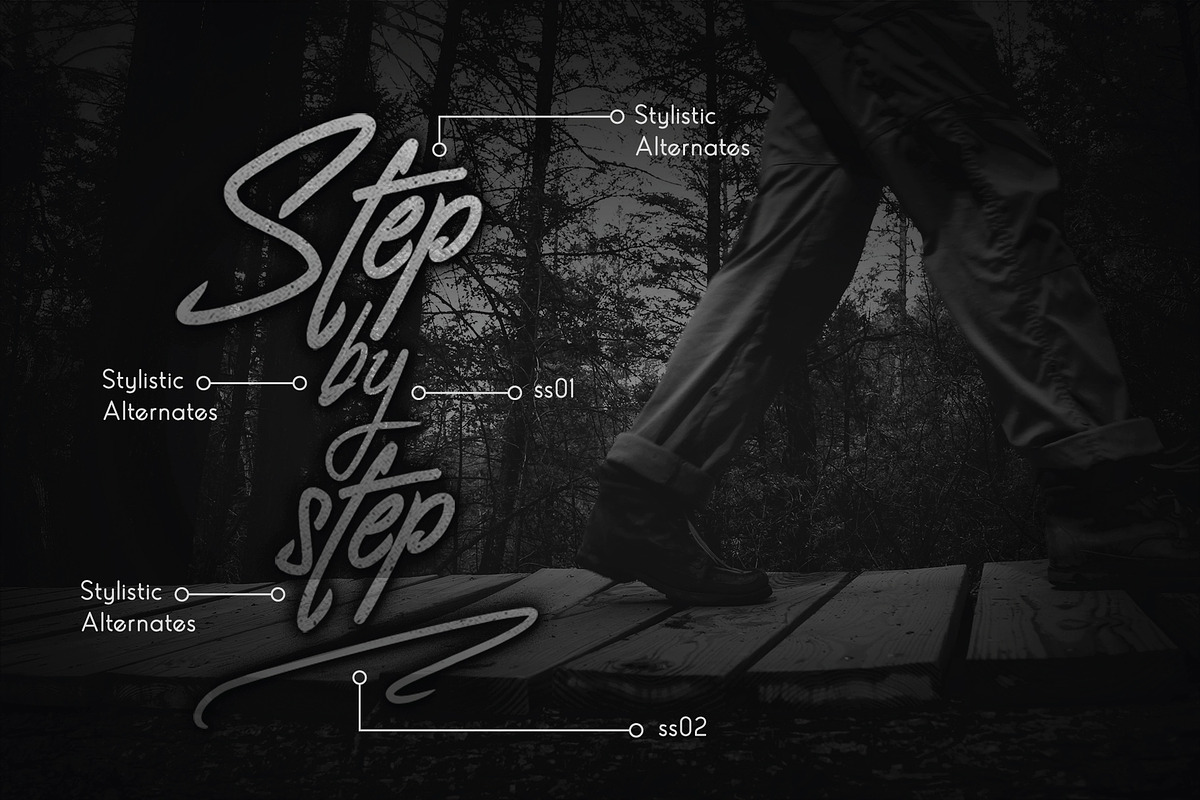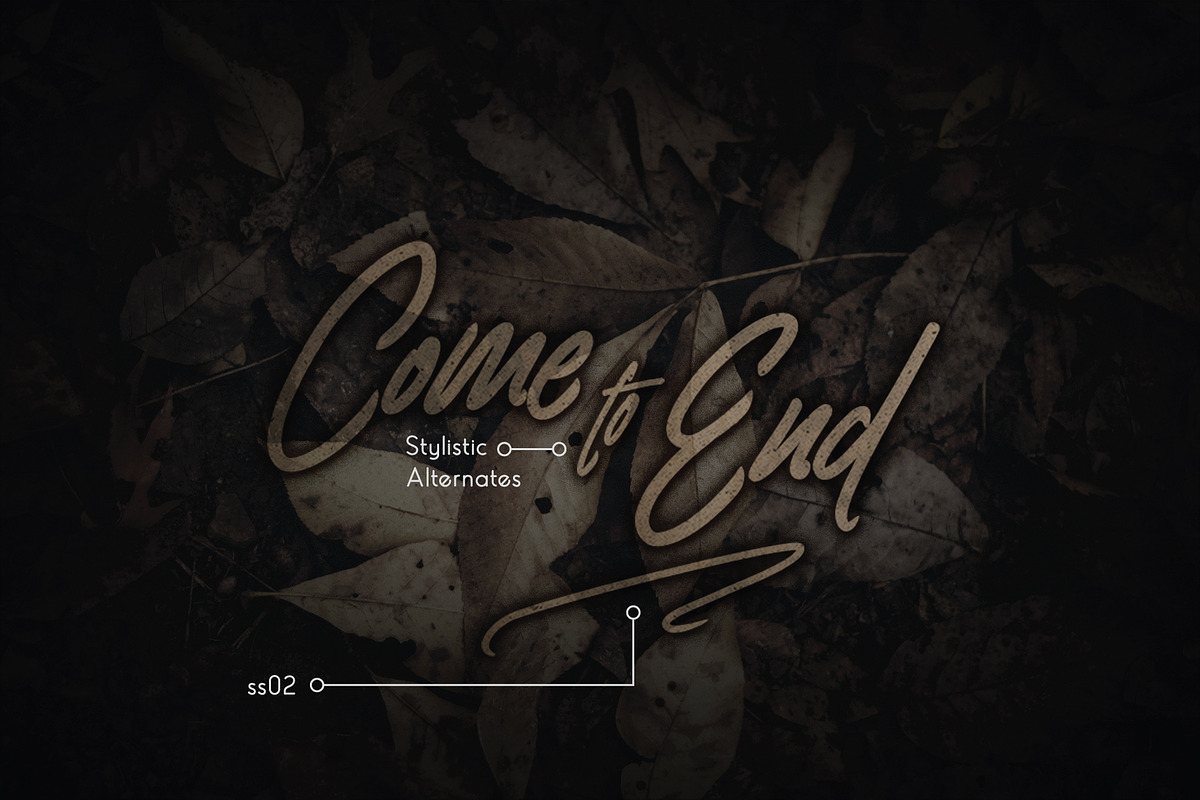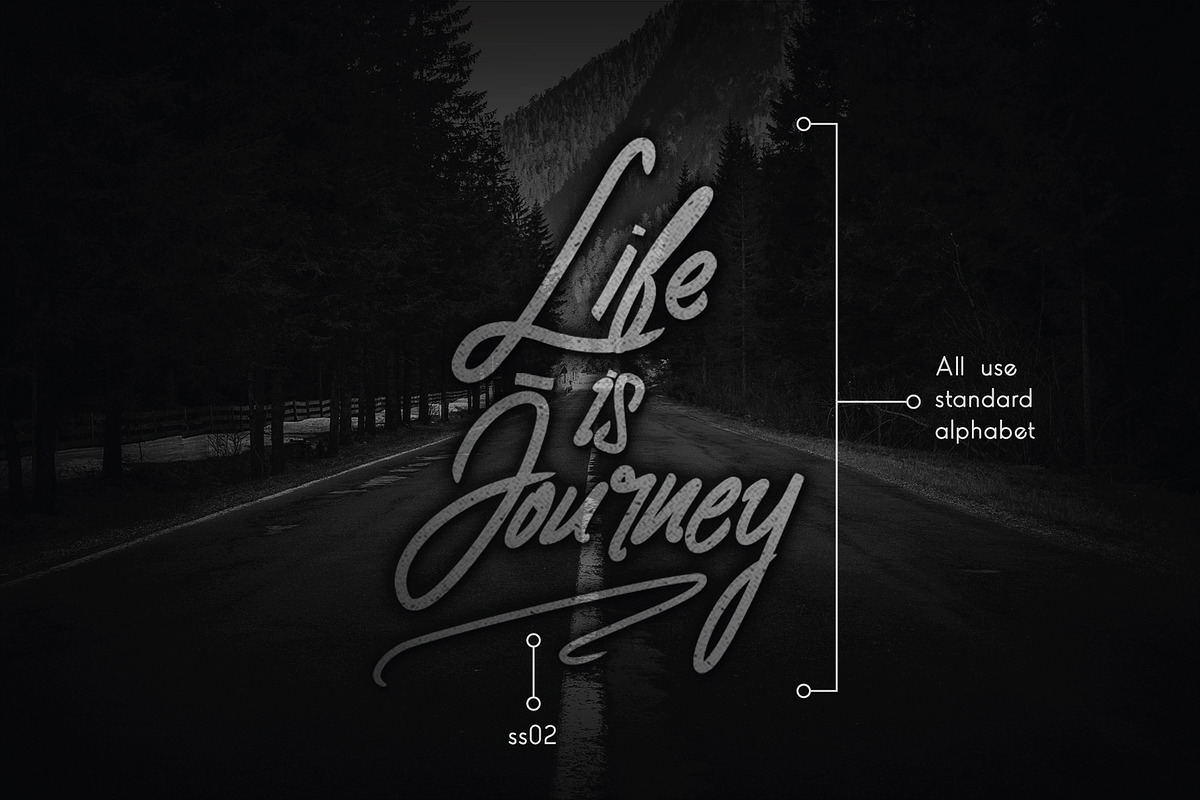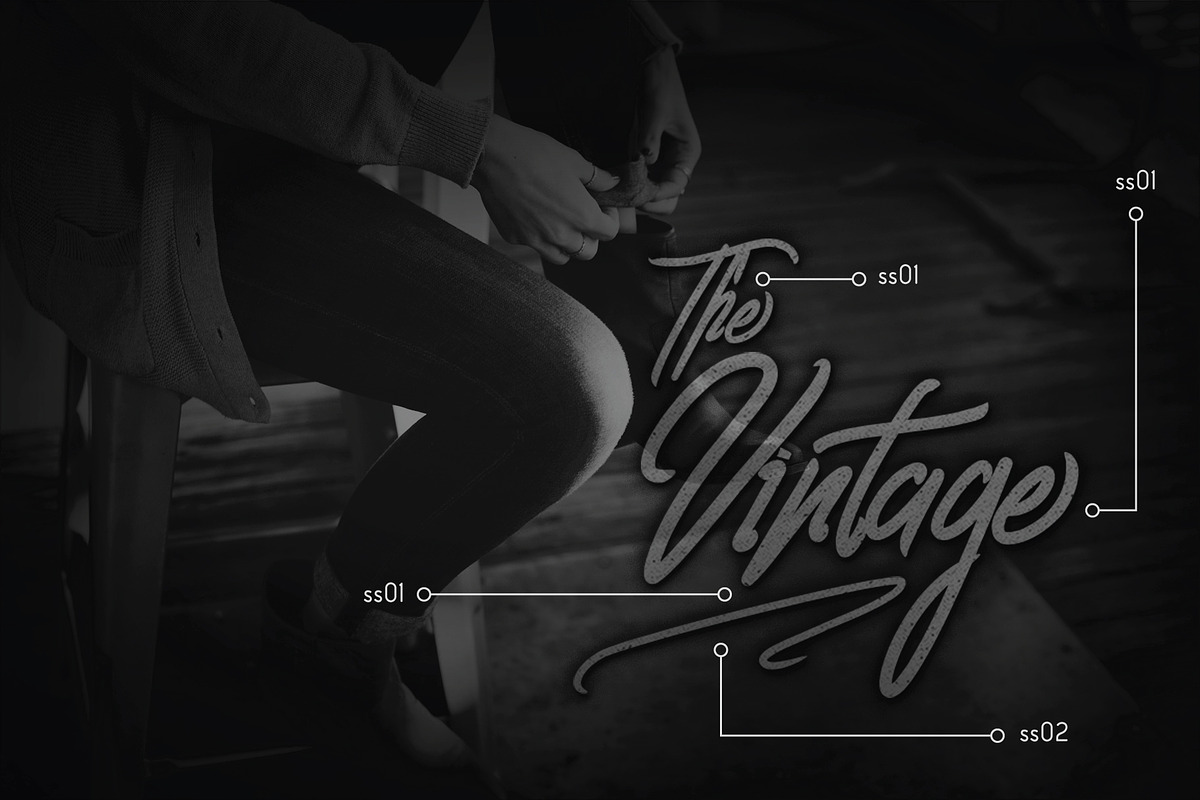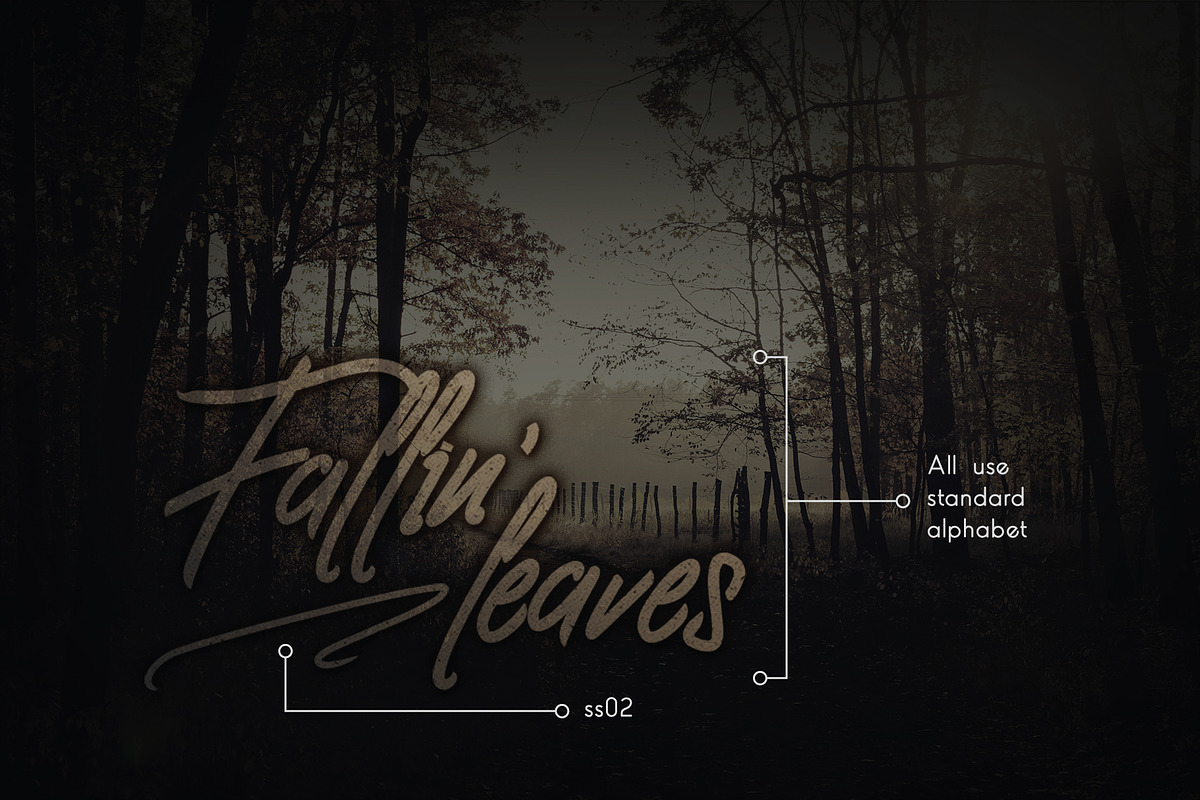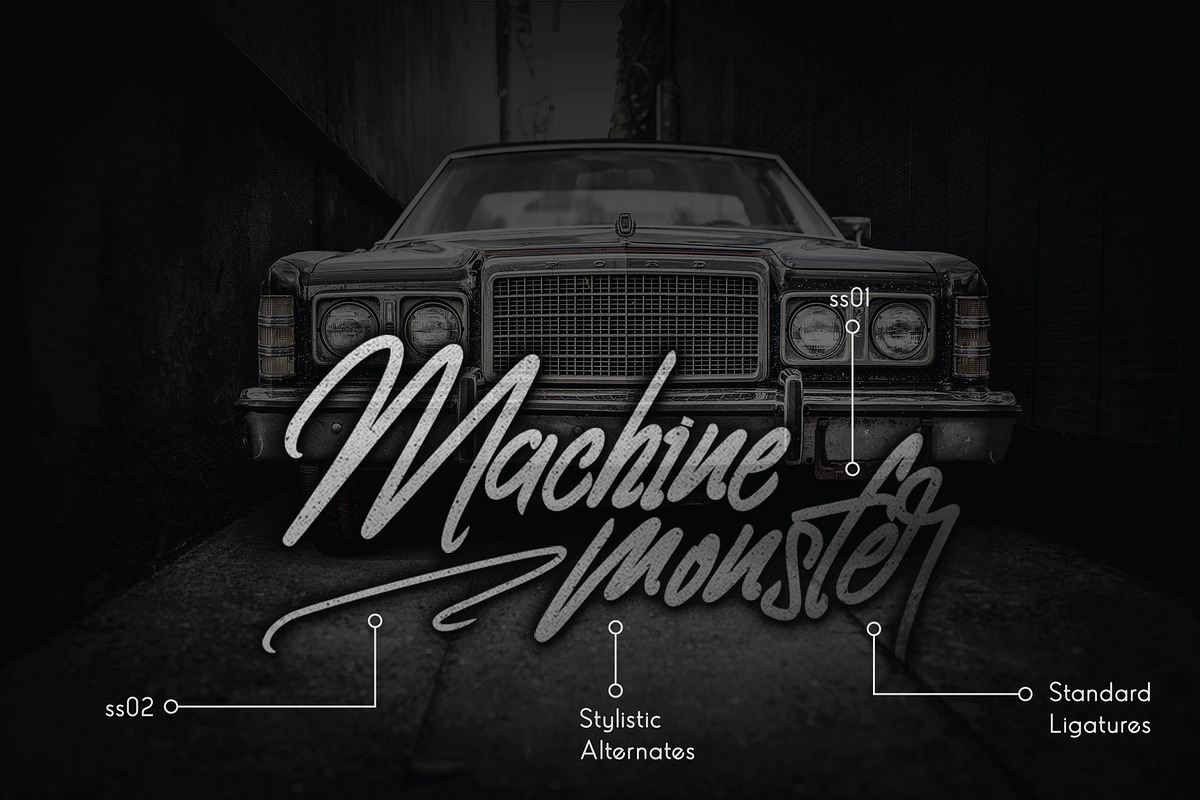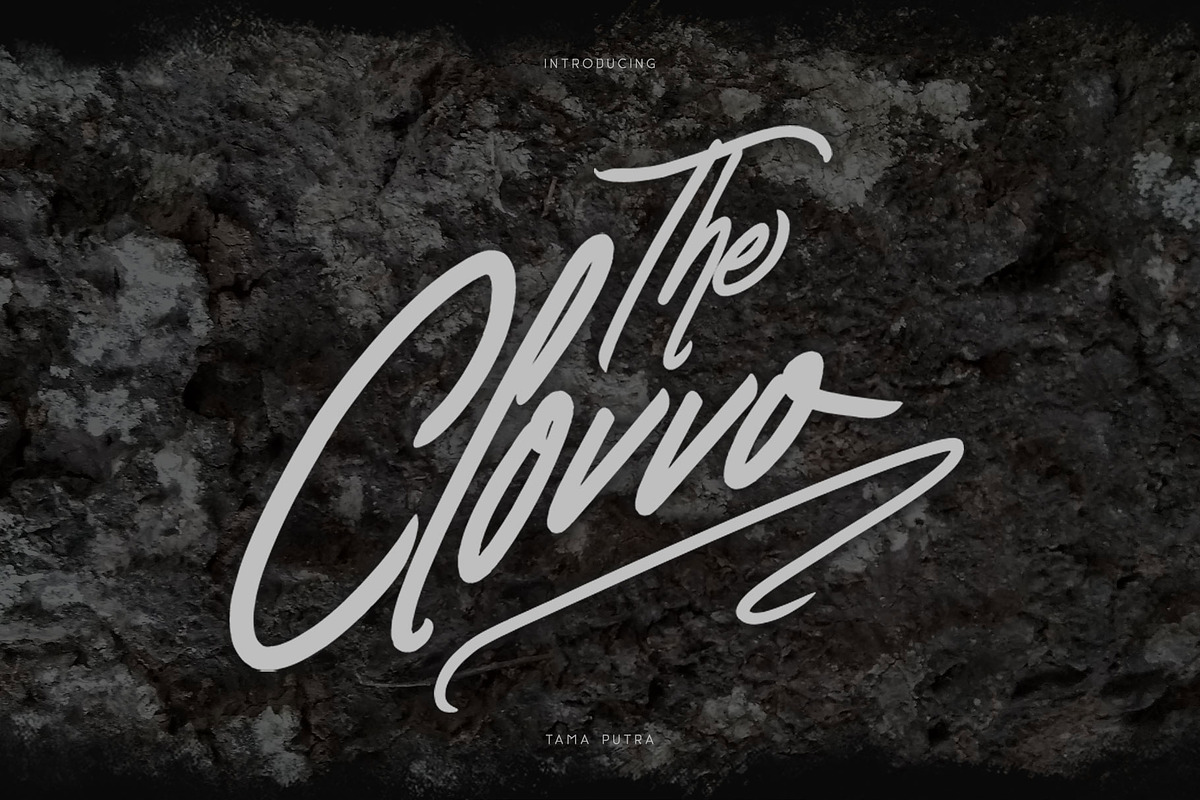
Clovvo Font
Clovvo is a romantic handwritten script typeface. It is suitable for any design needs, branding, cover title, t-shirts, posters and more.
It includes multi-lingual and currency support, numerals, and punctuation. It comes comes with stylistic alternates, ss01, ss02.
Character Set A-Z (Uppercase & Lowercase)
Accents (Multilingual characters)
This typeface can be put to many uses:
Clovvo typeface is suitable font for creating beautiful things and many creative work.
- It includes multi-lingual and currency support, numerals, and punctuation.
- It comes comes with stylistic alternates, ss01, ss02.
- Character Set A-Z (Uppercase & Lowercase)
- Numerals & Punctuation
- ss01, ss02
- Standard Ligatures
Clovvo Font by Vacatype Co. fits naturally into Branding, posters, packaging, typography.